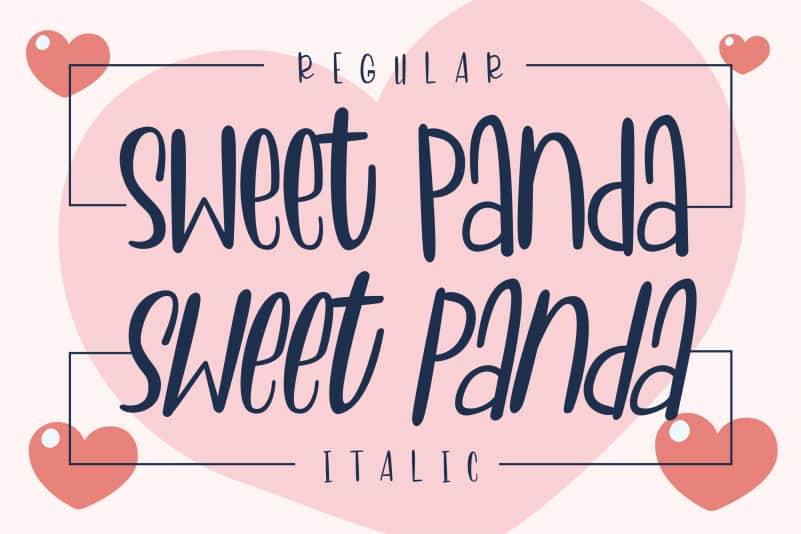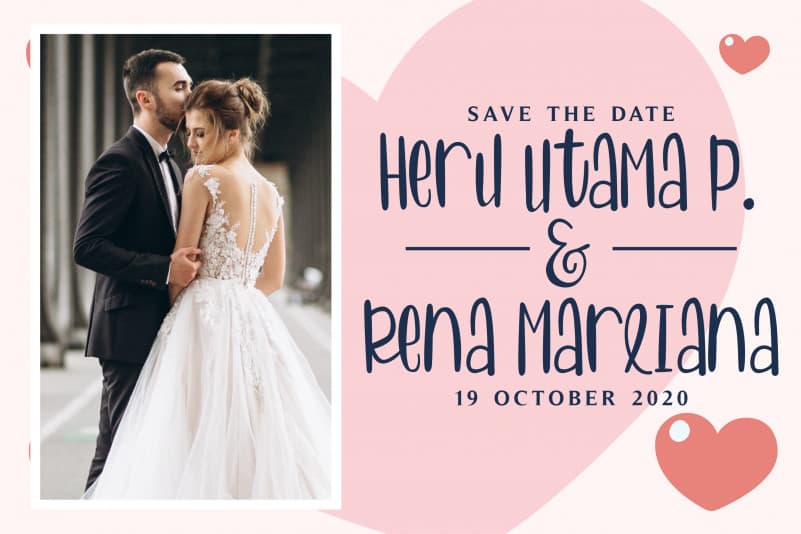
Sweet Panda Display Font
Sweet Panda Display Font is a quirky handwritten font bursting with personality and a charming style. Fall in love with its playful look & feel!